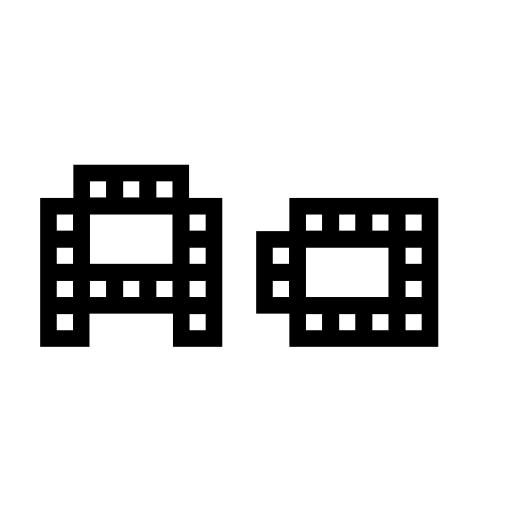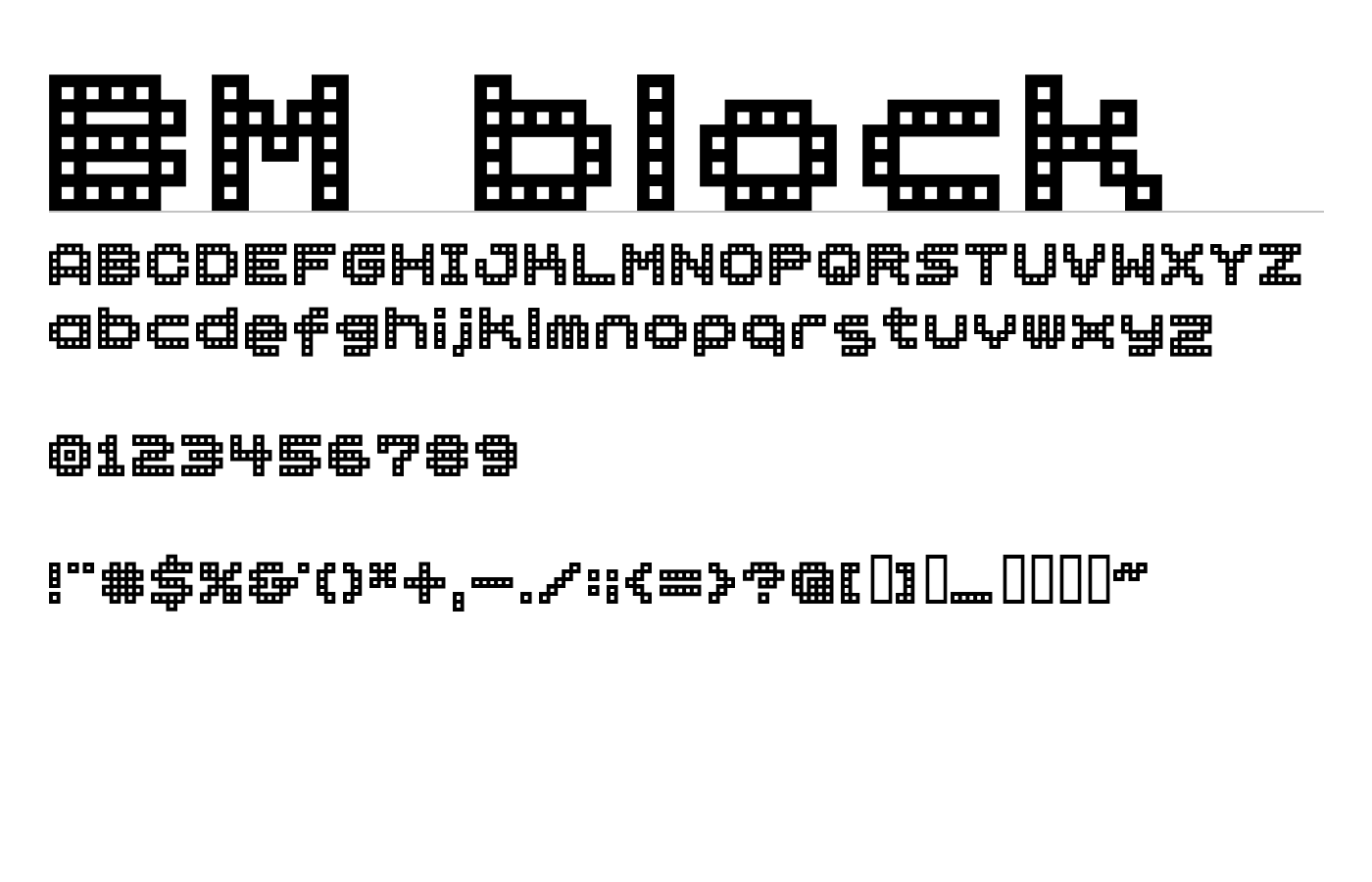
BM block Font is a bold, geometric sans-serif typeface characterized by a distinctive pixelated, block-like structure that evokes a retro digital or video game aesthetic. Its uniform stroke weight and square shapes give it a modern, tech-inspired feel, making it ideal for digital-themed designs, gaming logos, or playful headlines where a unique, eye-catching style is needed. This font works best in display settings where its pixel-art charm can stand out clearly.
BM block Font